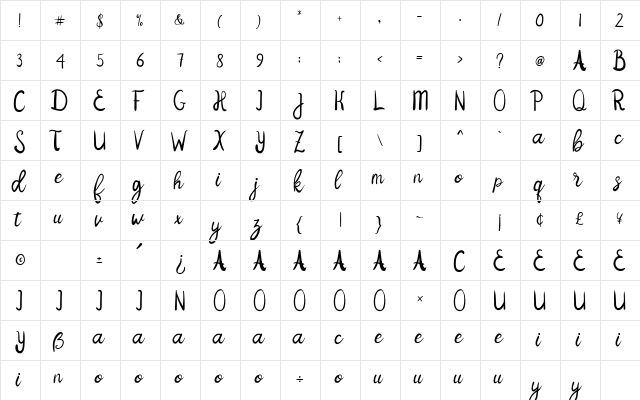
Jenilla Regular
| Foundry | F. Aristaputra |
| Designer | F. Aristaputra |
Design Context for Jenilla Typeface
Jenilla takes a measured approach to typography — its balanced proportions and neutral character make it a reliable workhorse for both digital and print work.